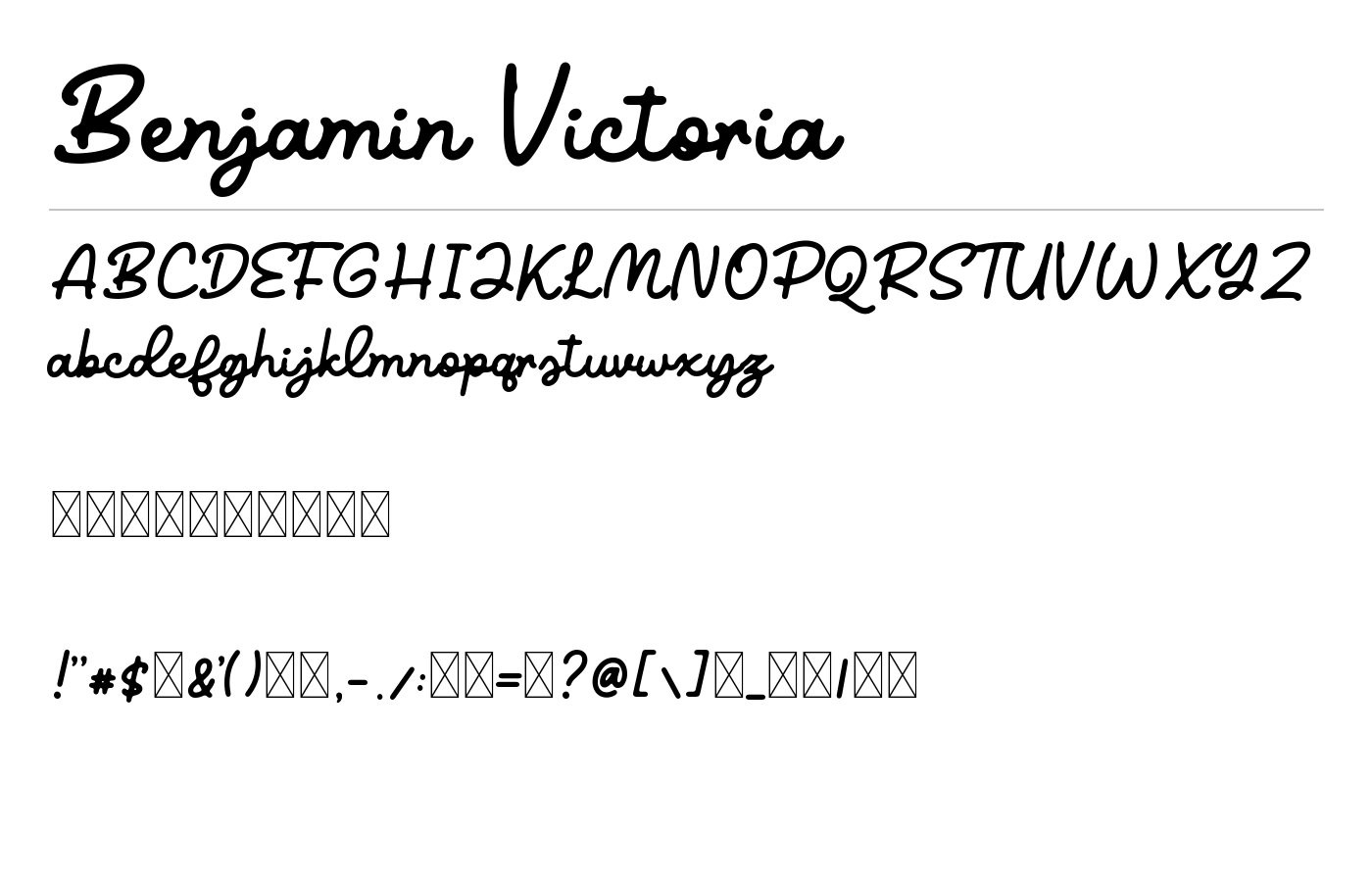
Benjamin Victoria is a casual, handwritten script font that combines a friendly and approachable style with a clean, legible structure. Its medium weight and smooth, rounded strokes give it an inviting, personal touch, making it ideal for branding, invitations, and creative projects that require warmth and charm without sacrificing readability. This font works well for designs looking to convey authenticity and a relaxed yet polished feel.
Benjamin Victoria Font
About Benjamin Victoria Font
| Font family | Benjamin Victoria Font |
| Designer | M Arif Dwi Prasetyo & Eko Nurcahyo |